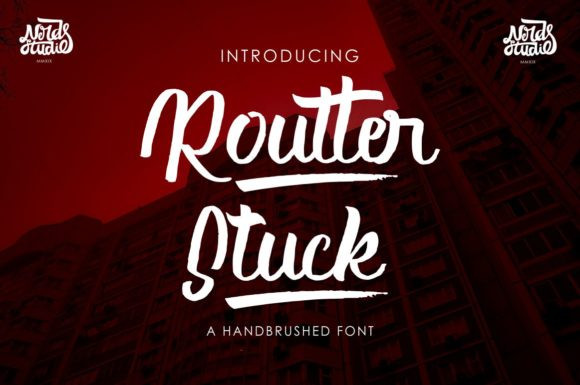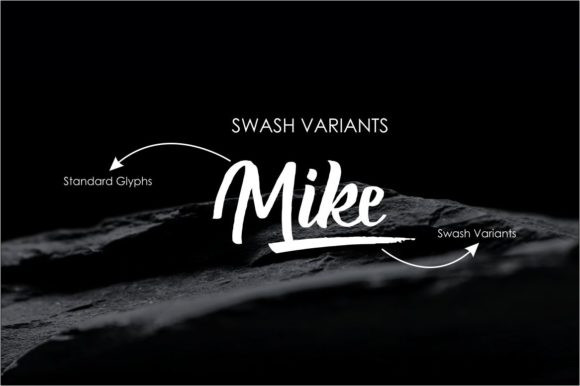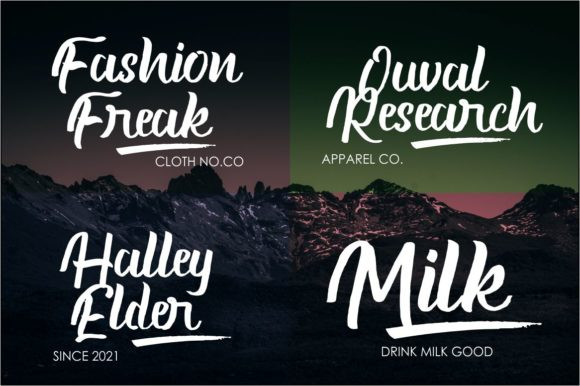
Routter Stuck Font
Routter Stuck is a paint brushed handwritten font. It is the best choice for creating eye catching logos, branding and quotes. Every letter has a unique and beautiful touch, which will make your design come alive!